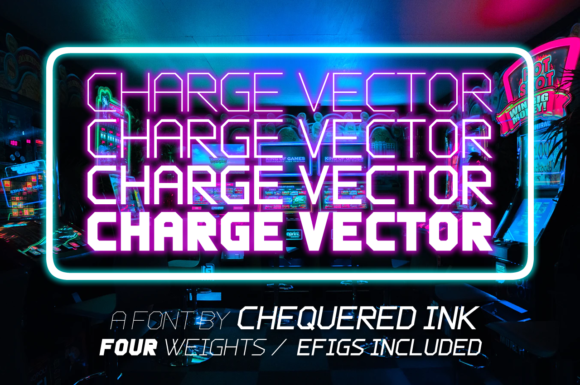
Enter Charge Vector Font, a bold, all caps display font that’s perfect for making a statement. Whether you’re crafting a digital design, creating a presentation, or making a greeting card, Charge Vector Font is the perfect choice. Its trendy vibe adds a touch of sophistication to any project, making it a valuable tool for designers looking to add some extra flair to their work.
Key Features of Charge Vector Font
- Unique Characteristics: The font features a futuristic and dynamic design, with bold lines and geometric shapes, making it ideal for sci-fi and tech-related projects.
Charge Vector Font Review
As a designer, I’ve had the chance to work with the Charge Vector Font, and I must say it’s a unique and interesting choice. ✨ The font’s vector design gives it a crisp, modern feel that works well for digital applications, such as web design and mobile apps. ✨ The font’s flexibility allows for easy customization, making it a great option for designers who want to add a touch of personality to their projects.
However, I do have some concerns. ⚠️ One of the main limitations of the Charge Vector Font is its limited character set. ⚠️ While it’s perfect for displaying short messages and headlines, it falls short when it comes to longer blocks of text. Additionally, the font’s design can be a bit overwhelming, making it difficult to read in larger font sizes.
Overall, I think the Charge Vector Font is a great option for designers who want to add a touch of modernity to their projects. However, it’s essential to consider the limitations and use it judiciously. Here are some pros and cons to consider:
- Unique vector design gives a modern feel
- Flexible and easy to customize
- Perfect for digital applications
- Limited character set
- Can be overwhelming in larger font sizes
The Charge Vector Font is ideal for:
1. Creating dynamic and engaging headings and titles.
2. Adding visual interest to presentations and documents.
3. Designing logos and brand identities.
Alternatives to Charge Vector Font
1. Open Sans Vector Font
Open Sans Vector Font is a sans-serif font that is highly legible and versatile. It is suitable for body text and is often used for digital interfaces. Open Sans Vector Font can be used as an alternative to Charge Vector Font for designs that require a clean and modern look. Compared to Charge Vector Font, Open Sans Vector Font has a more neutral tone and is not as dramatic in its design.
2. Montserrat Vector Font
Montserrat Vector Font is a sans-serif font inspired by the urban environment of Montserrat, Argentina. It is highly customizable and suitable for use in digital interfaces. Montserrat Vector Font can be used as an alternative to Charge Vector Font for designs that require a bold and modern look. Compared to Charge Vector Font, Montserrat Vector Font has a more dramatic and geometric design.
3. Lato Vector Font
Lato Vector Font is a sans-serif font that is highly legible and elegant. It is suitable for use in digital interfaces and is often used for body text. Lato Vector Font can be used as an alternative to Charge Vector Font for designs that require a clean and sophisticated look. Compared to Charge Vector Font, Lato Vector Font has a more refined and classic design.
Is the Charge Vector Font compatible with all operating systems and devices?